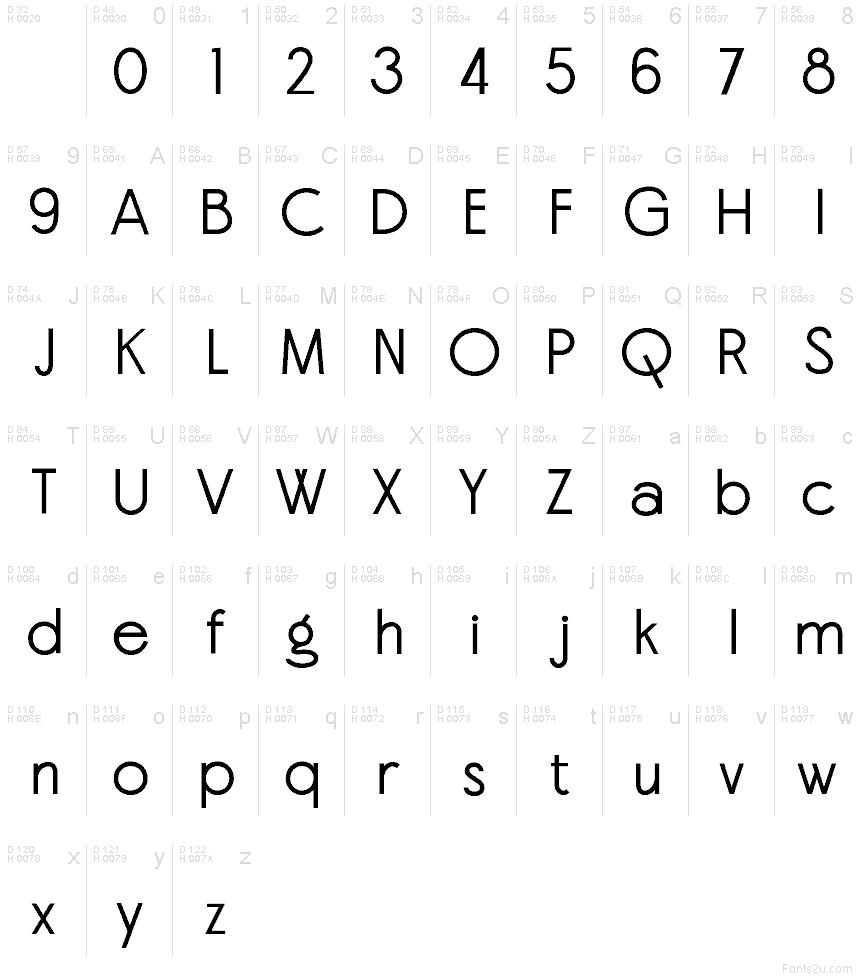
Hellosin Regular
Hellosin font by Tezar Tantular is a modern and minimalist sans serif free font. Its sleek design combines clean lines and geometric shapes, which give it both an approachable and elegant vibe—one which instantly appeals to the reader! In fact, the readability of this resource is one that’s guaranteed at any size.
Use Hellosin in posters, banner ads, website titles or headlines. Other ideas include stationery designs for invitation cards or business cards. The minimalistic touch of this one is perfect for mobile app designs, UX/UI kits as well as book covers or album covers.